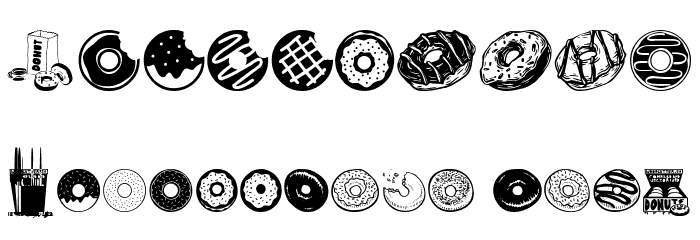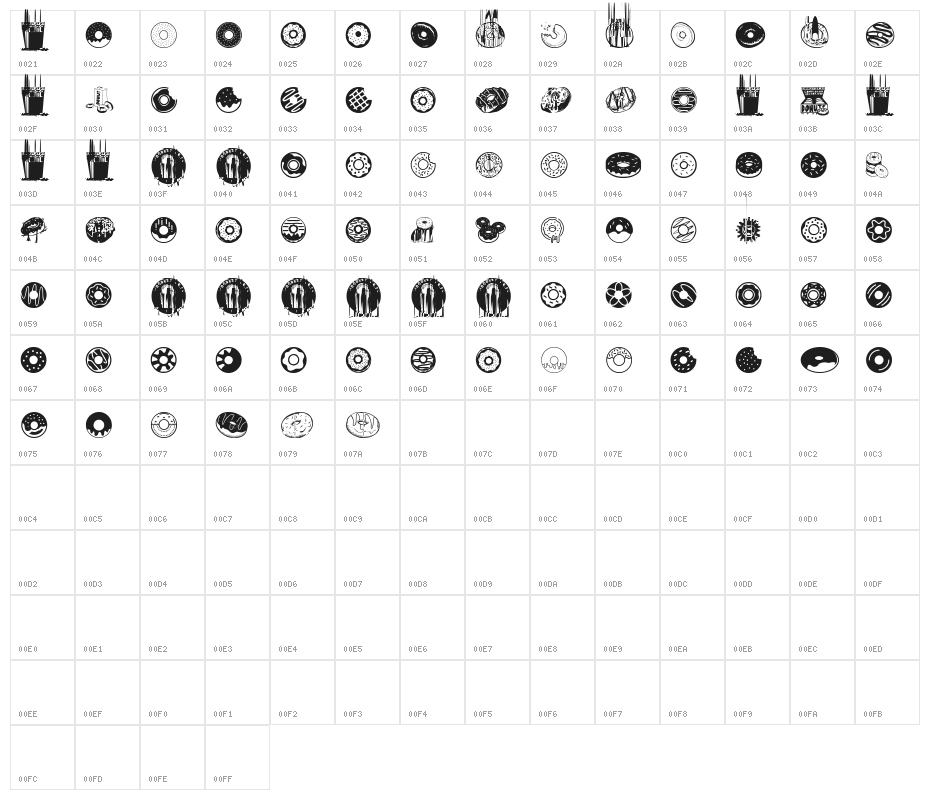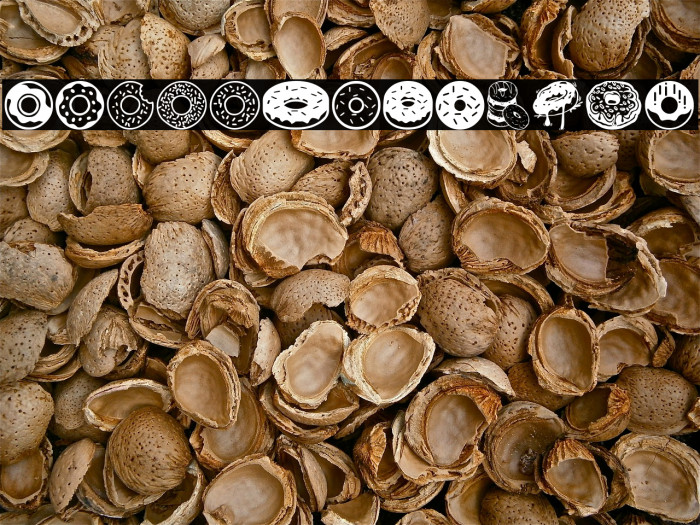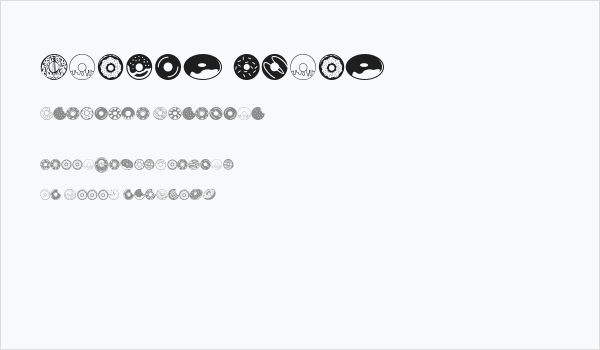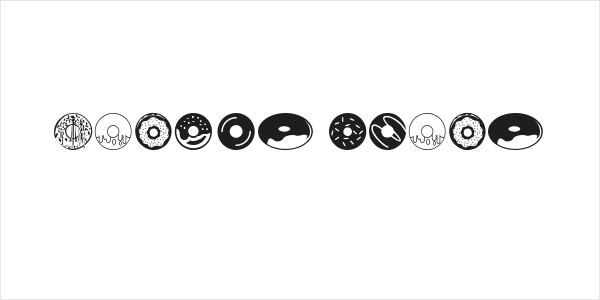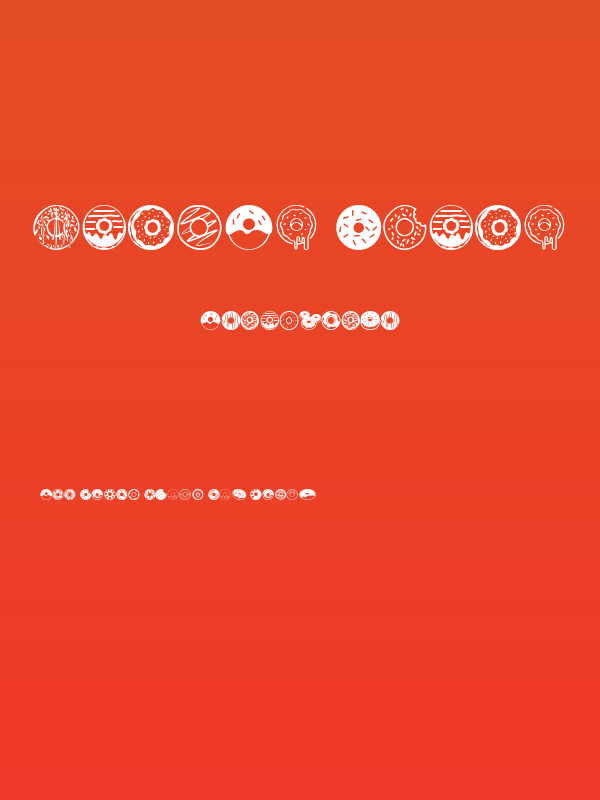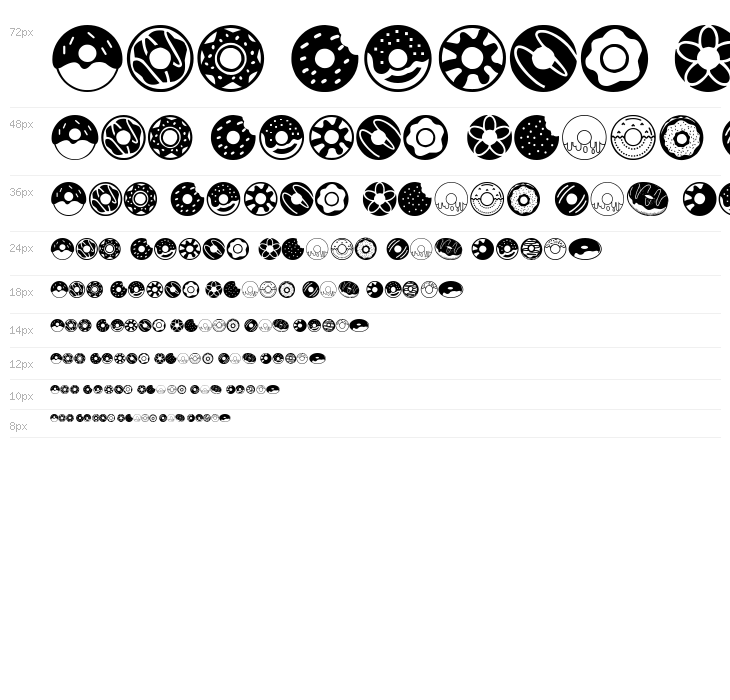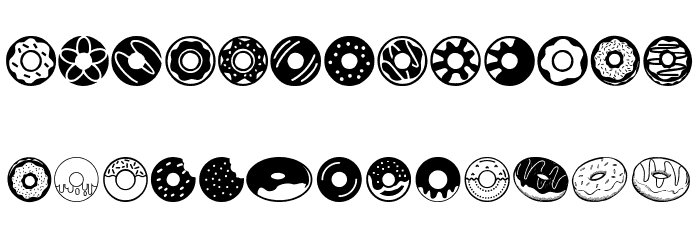
Donuts Icons Font
Donuts Icons Description
A playful and detailed icon set featuring a wide variety of donut illustrations, each with unique toppings, shapes, and decorative elements. The icons are rendered in a bold, high-contrast black and white style, with both filled and outlined designs, and include additional bakery-themed graphics.
| Overall Style | Playful, Decorative, Modern |
| Use Case | Icons, Logos, Decorative elements, Themed graphics |
| Proposed Projects | Food branding, bakery menus, packaging, social media graphics, children's books, playful posters. |